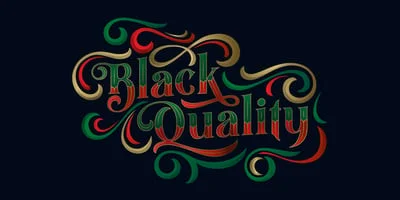
Black Quality Font
Black Quality Font is perfect for luxury brand logos, premium product packaging, high-end corporate identities, exclusive fashion labels, sophisticated wine branding, upscale restaurant signage, elite membership materials, and prestigious marketing campaigns. This distinguished typeface excels in applications where premium quality and elite sophistication are essential.
What makes Black Quality Font so exciting is its commanding ability to convey uncompromising excellence and premium sophistication through bold, authority-inspired letterforms that embody the essence of luxury craftsmanship and elite brand positioning. The font features strong character shapes with refined details and quality-focused styling that evoke images of executive boardrooms, luxury boutiques, and the highest standards of professional excellence. Its premium-driven design philosophy combines luxury authenticity with contemporary authority, making it perfect for elite brands seeking to convey superior quality, exclusive prestige, and connection to luxury lifestyle communities and premium market segments.
Black Quality Font belongs to the luxury serif font family, specifically designed for premium branding and high-end corporate applications. This typeface family emphasizes authoritative visual impact through quality-inspired styling and sophisticated character elements, ensuring authentic luxury presentation across various premium and executive-focused design projects.
Establish premium excellence with Black Quality Font, a typeface that embodies the uncompromising standards of luxury brands and elite quality craftsmanship. This distinguished font delivers exceptional authority for premium applications, featuring comprehensive character sets with luxury symbols and sophisticated punctuation marks that capture the essence of superior quality and executive prestige. Its powerfully refined letterforms maintain excellent readability while preserving the authentic luxury aesthetic across various sizes, from elegant business cards to massive corporate headquarters displays. The font's distinctive premium personality makes it invaluable for designers creating luxury brands, executive materials, and high-end content where conveying quality, authority, and premium excellence is crucial for engaging affluent audiences and luxury markets seeking authentic elite experiences and superior brand positioning.